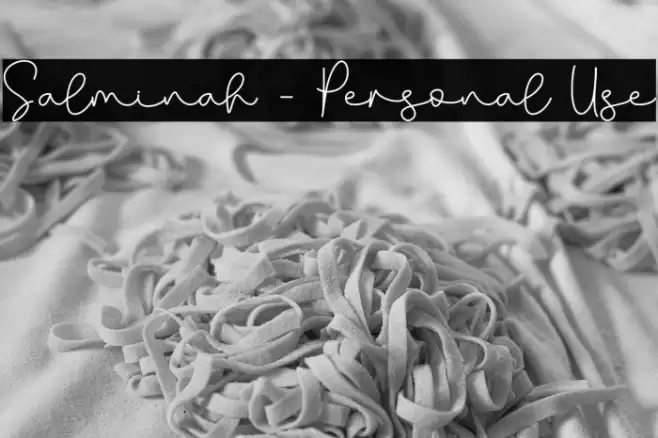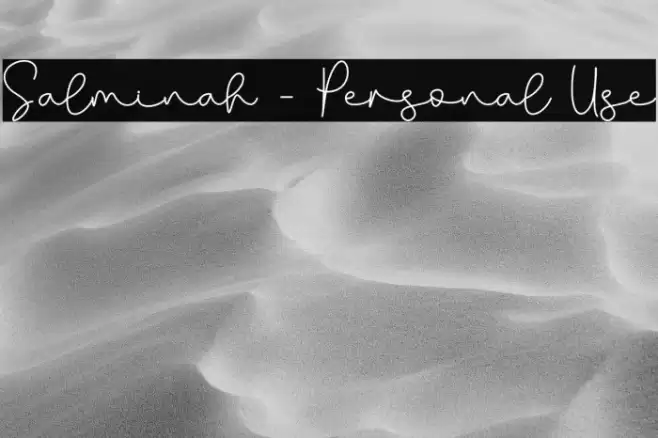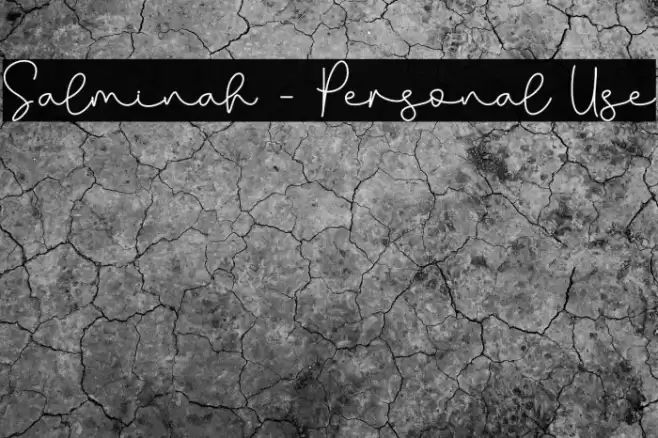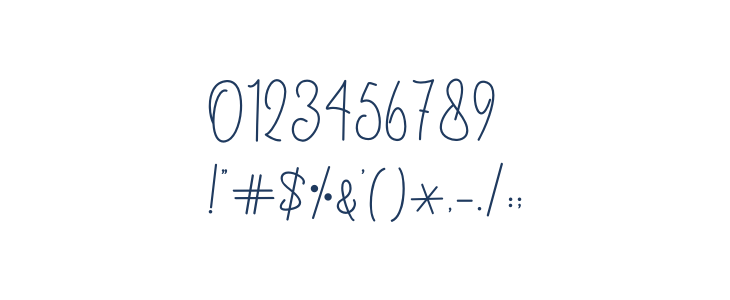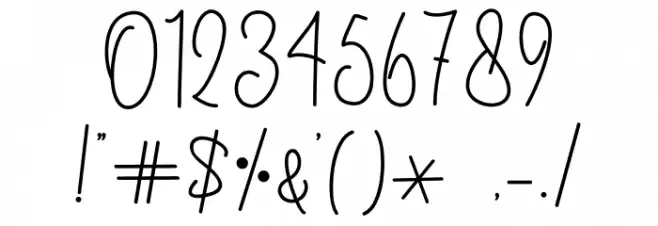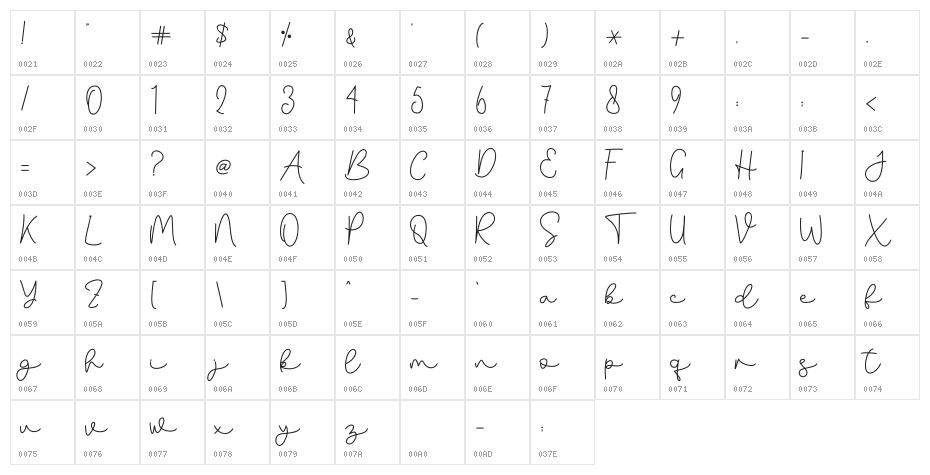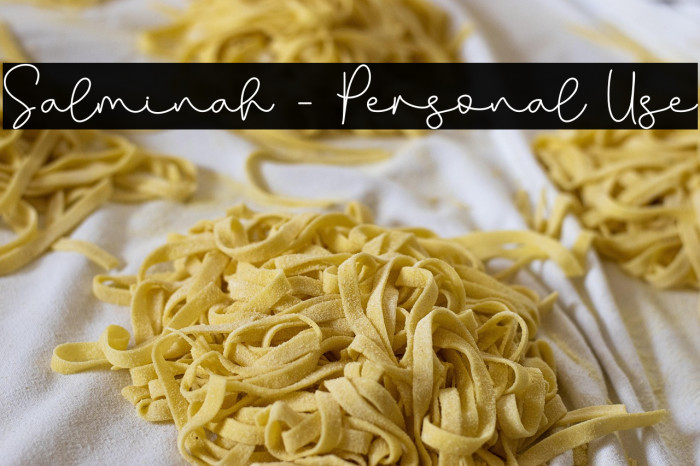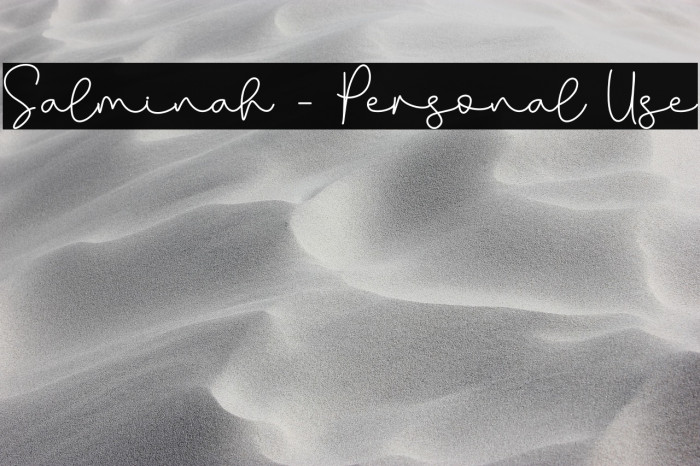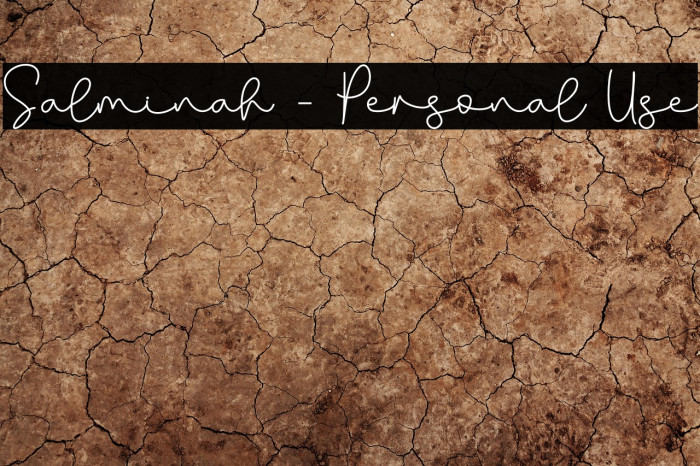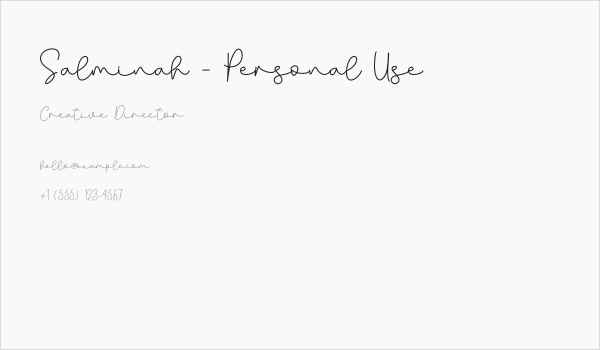
Salminah - Personal Use Font
Salminah - Personal Use Description
This font features a playful and whimsical handwritten style, characterized by its fluid and continuous strokes. The uppercase letters are tall and slightly narrow, with a casual elegance that adds a personal touch to any text. The lowercase letters maintain a consistent flow, enhancing the font's overall cohesiveness. Numbers are clear and legible, matching the playful style of the letters. Special characters are thoughtfully designed to complement the alphabet, making this font versatile for various uses. The overall appearance is both charming and approachable, ideal for projects that require a personal or informal tone.
A playful, whimsical handwritten font with fluid strokes and a personal touch from Uncategorized fonts.
- Proposed Projects: Ideal for greeting cards, invitations, personal branding, and creative projects that require a friendly and informal style.
- Use Case: Logos, Invitations, Greeting Cards